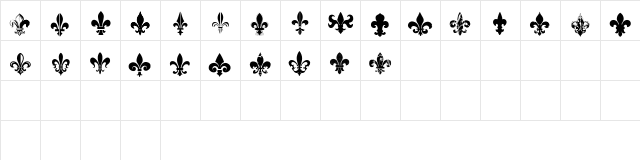
CF Fleurs de Lys Regular
| Foundry | CloutierFontes |
| Designer | Steve Cloutier |
Design Context for CF Fleurs de Lys Typeface
CF Fleurs de Lys is a composed and adaptable typeface that performs quietly and consistently across a wide range of design contexts.